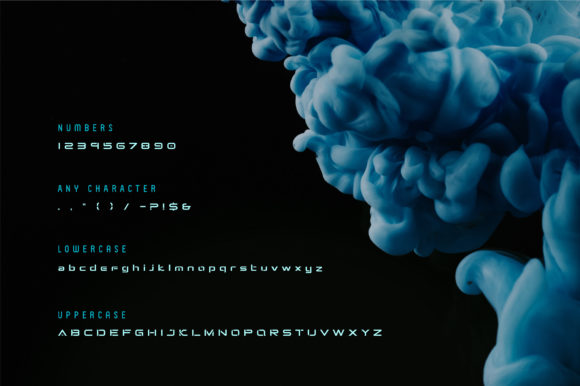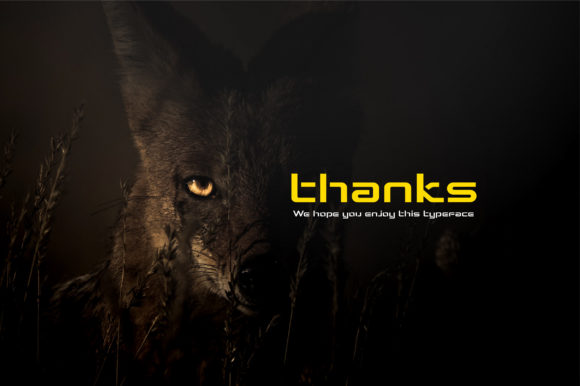
The Perfect Font to Elevate Your Design Game
Have you ever stared at a blank design canvas, struggling to find the perfect font to bring your vision to life? We’ve all been there – the blank page staring back at us, taunting us to create something amazing. It’s moments like these that we crave a game-changer, a font that exudes confidence and makes a statement. Enter Agker Font, a bold display font designed to make your designs stand out from the crowd.
Agker Font is more than just a font – it’s a powerful tool in a designer’s arsenal. Whether you’re crafting a stunning web design, creating eye-catching business cards, or simply adding a touch of personality to your brand, Agker Font is the perfect companion. Its unique, bold aesthetic is sure to captivate your audience and leave a lasting impression.
Agker Font Key Features
- Unique Characteristics: The Agker Font features a unique blend of modern and traditional design elements, including geometric shapes, rounded edges, and subtle texture, making it an ideal choice for designers seeking a distinctive look.
Designer Review: Agker Font
When I first started exploring the Agker Font, I was immediately drawn to its unique and modern aesthetic. ✨ The font’s clean lines and subtle nuances make it perfect for any project that requires a touch of sophistication.
The Agker Font is incredibly versatile and can be used in a variety of contexts, from digital interfaces to print materials. It’s also highly legible, even at small font sizes, which is a major plus in my book.
- Unique and modern aesthetic
- Highly legible, even at small font sizes
- Versatile and suitable for various contexts
However, I did encounter a few limitations during my review. ⚠️ The font can sometimes appear a bit too plain, which may not be suitable for projects that require a bold or attention-grabbing design.
- May appear too plain for certain projects
- Lack of bold or italic styles
Overall, I’d say the Agker Font is a solid choice for designers who want a clean and modern font without the need for bold or flashy styles. While it may not be perfect for every project, it’s certainly worth considering for your next design endeavor.
Agker Font Practical Application Guide
Agker Font is ideal for creating modern, minimalist designs. Use it for headings, titles, and body text to add a touch of sophistication to your designs. Some common use cases include:
– Brochures and flyers
– Business cards and letterheads
– Website headers and footers
– Social media graphics and ads
Alternatives to Agker Font
Montserrat is a sans-serif font designed by Julieta Ulanovsky. It is a modern, clean font that is highly legible and versatile. Montserrat is ideal for use in digital products, magazines, and other publications where a clear, modern aesthetic is desired.
Montserrat compares to Agker Font in that it also has a modern and clean design. However, Montserrat has a slightly more geometric feel and is more suitable for digital applications. Agker Font, on the other hand, has a more humanist feel and is better suited for print materials.